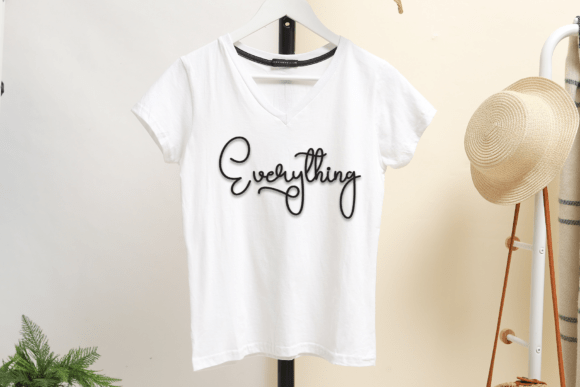
Introducing Budget Font: The Perfect Blend of Modern Elegance and Playfulness
In the world of typography, fonts play a crucial role in conveying the tone and personality of a brand or design. When it comes to creating a lasting impression, the right font can make all the difference. This is where Budget Font comes in – a stylish handwritten script font that seamlessly blends modern elegance with a playful touch.
What is Budget Font?
Budget Font is a carefully crafted handwritten script font that exudes a sense of sophistication and creativity. Its fluid strokes and charming curves bring a personal feel to any design, making it an ideal choice for a wide range of applications, from logos and packaging to invitations and more.
With its unique blend of modern elegance and playfulness, Budget Font is perfect for designers looking to add a touch of warmth and personality to their projects. Whether you’re working on a branding campaign, a marketing project, or simply looking for a font to add some flair to your design, Budget Font is an excellent choice.
Key Features of Budget Font
- Fluid Strokes: Budget Font features fluid strokes that give it a natural, handwritten feel. This makes it perfect for creating designs that require a personal touch.
- Charming Curves: The font’s charming curves add a touch of elegance and sophistication to any design, making it ideal for high-end brands and luxury projects.
- Playful Touch: Budget Font’s playful touch sets it apart from more traditional fonts, making it perfect for designs that require a bit of whimsy and creativity.
- Versatile: Budget Font is incredibly versatile, making it suitable for a wide range of applications, from logos and packaging to invitations and more.
Use Cases for Budget Font
Budget Font is an incredibly versatile font that can be used in a variety of contexts. Here are some of the most popular use cases:
- Logos: Budget Font is perfect for creating unique and memorable logos that require a personal touch.
- Packaging: The font’s elegant and sophisticated feel makes it ideal for packaging designs that require a high-end look and feel.
- Invitations: Budget Font’s playful touch makes it perfect for creating invitations that require a bit of whimsy and creativity.
- Branding: The font’s unique blend of modern elegance and playfulness makes it perfect for branding campaigns that require a font that can adapt to different contexts.
Benefits of Using Budget Font
There are many benefits to using Budget Font in your designs. Here are some of the most significant advantages:
- Unique Look and Feel: Budget Font’s unique blend of modern elegance and playfulness gives it a distinct look and feel that sets it apart from other fonts.
- Versatility: The font’s versatility makes it suitable for a wide range of applications, from logos and packaging to invitations and more.
- Ease of Use: Budget Font is incredibly easy to use, making it perfect for designers of all skill levels.
- High-Quality: The font is designed to high-quality standards, ensuring that it looks great in any design.
Tips for Using Budget Font
Here are some tips for using Budget Font in your designs:
- Experiment with Different Sizes: Budget Font looks great in a variety of sizes, so don’t be afraid to experiment to find the perfect size for your design.
- Pair it with Other Fonts: Budget Font pairs well with other fonts, so try combining it with different typefaces to create a unique look.
- Use it for Headings: Budget Font is perfect for headings and titles, so try using it to add a touch of elegance and sophistication to your design.
- Don’t Overuse it: While Budget Font is a beautiful font, it’s best not to overuse it. Try using it sparingly to add a touch of personality to your design.
In conclusion, Budget Font is a stylish handwritten script font that blends modern elegance with a playful touch. Its fluid strokes and charming curves bring a personal feel to any design, making it an ideal choice for a wide range of applications. With its versatility, ease of use, and high-quality design, Budget Font is perfect for designers looking to add a touch of warmth and personality to their projects.
- What is Budget Font? Budget Font is a stylish handwritten script font that blends modern elegance with a playful touch.
- What is Budget Font used for? Budget Font is perfect for a wide range of applications, including logos, packaging, invitations, and more.
- Is Budget Font easy to use? Yes, Budget Font is incredibly easy to use, making it perfect for designers of all skill levels.